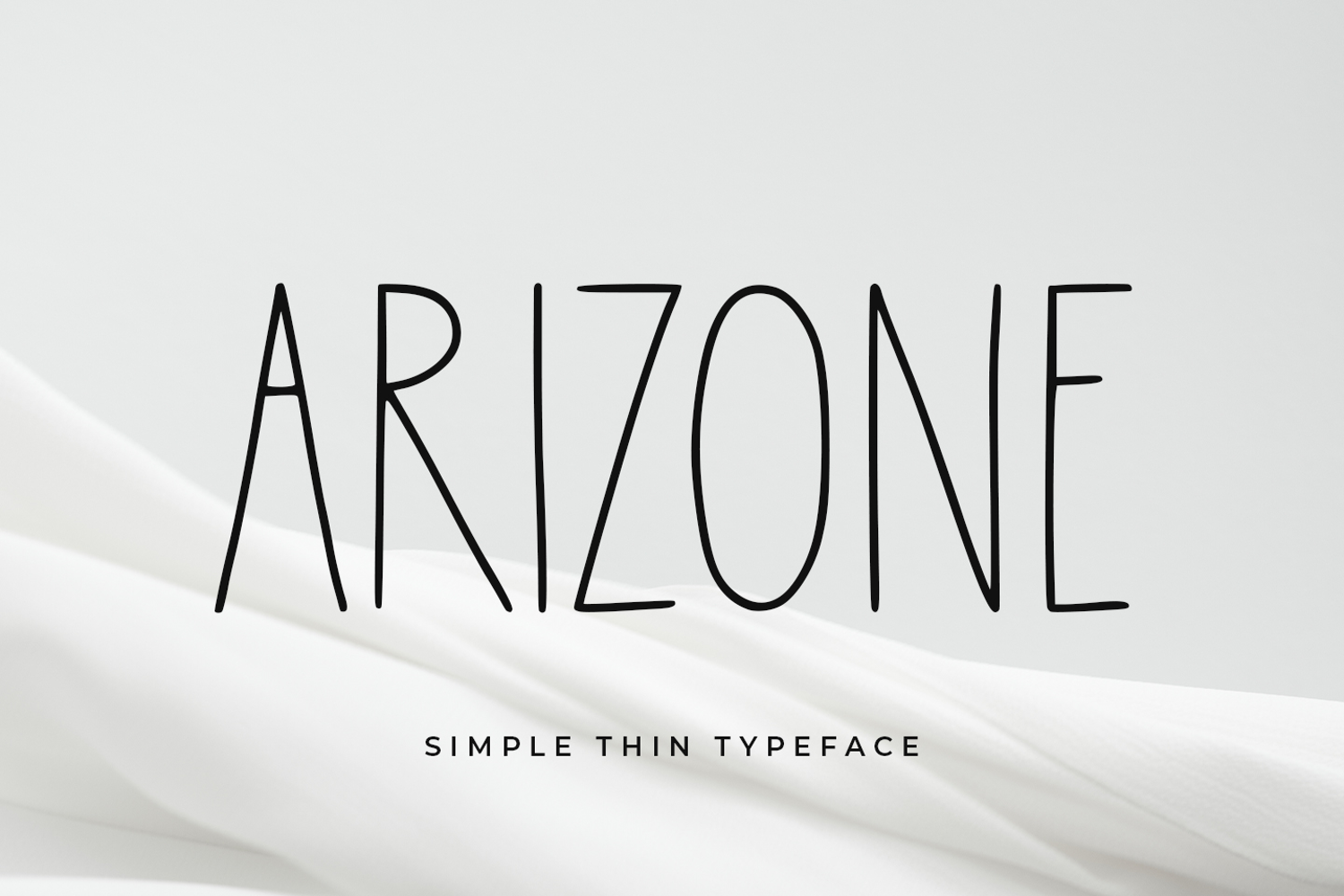
Arizone
introducing
ARIZONE
- simple thin handwritten font-
ARIZONE is great for branding, quotes, logos, t-shirt designs, tote bag designs, cards, banners, social media, and more.
- All Uppercase
- Numeral